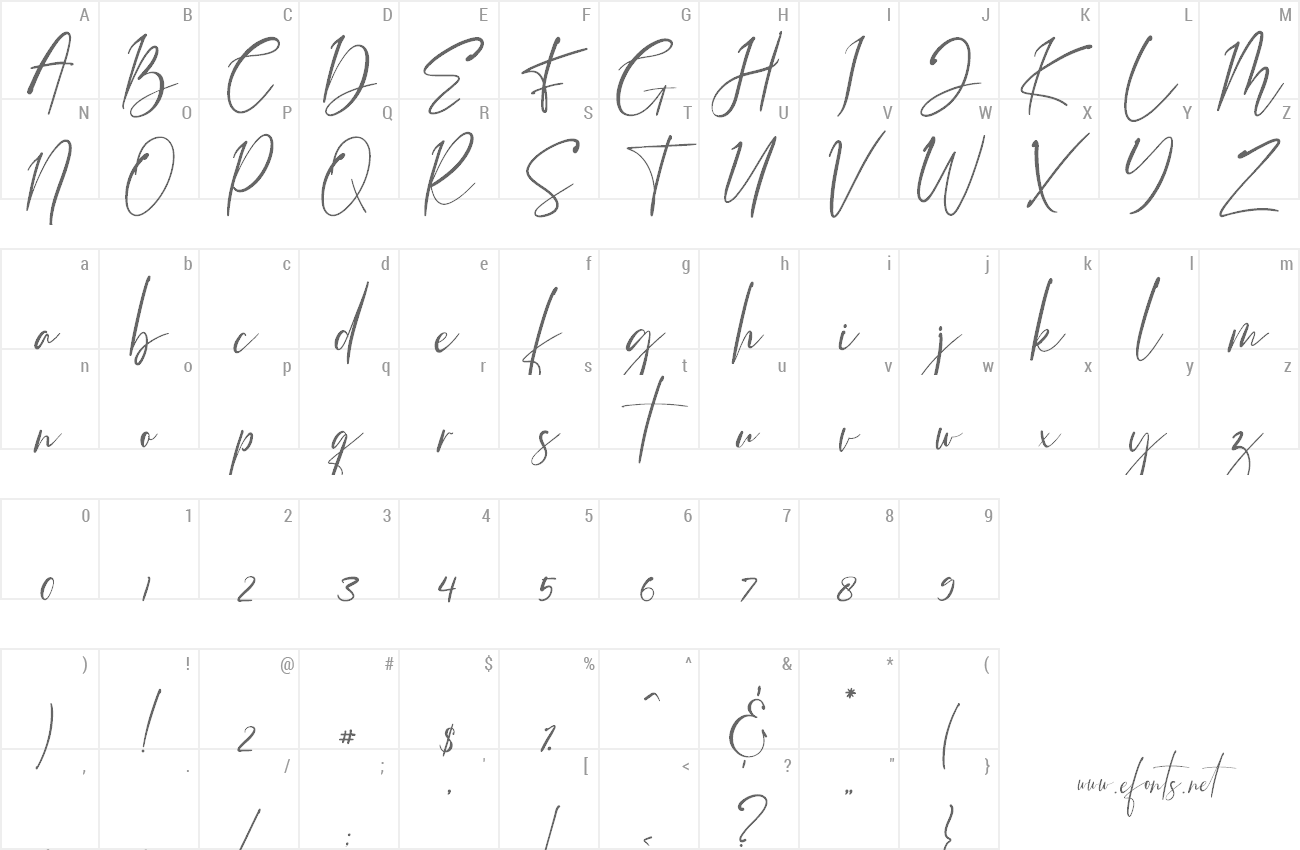
Preview and download Bernaillo Font. Created by Pen Culture in Script Handwritten styles with Free for personal use license.
| Font name: | Bernaillo |
| Author: | Pen Culture |
| Note by Pen Culture | |
hello there :) today i will introduce my new font named �Bernaillo�. a handwritten style font that I created manually and original by me. Bernaillo fonts are fonts that are very suitable for use in a variety of uses. equipped with uppercase letters, lowercase letters, numeral, punctuation, has 84 beautiful ligature, and multilingual support. Bernaillo fonts can be used in various uses such as watermarks, signature and signature logos, business cards, brand names, and many more. what you will get : - Bernaillo.otf, Bernaillo.ttf - Bernailo script includes capital and lowercase letters, and 84 Ligatures - Numbers + punctuation - Foreign language support see my other work : https://www.behance.net/PenCulture my creative market shop : https://creativemarket.com/PenCulture FULL VERSION HERE : https://fontbundles.net/pen-culture/211052-bernaillo THANK YOU |